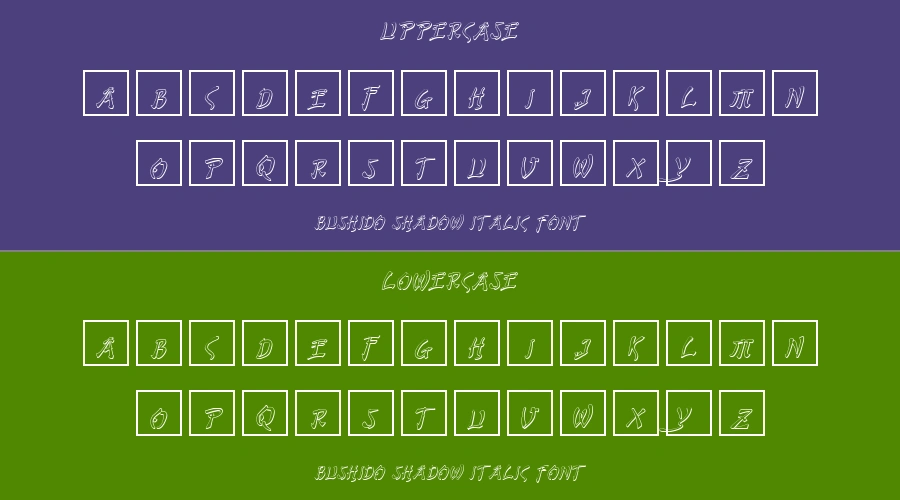
About Bushido Shadow Italic Font
When typographic excellence matters most, Bushido Shadow Italic Font delivers through its thoughtful blend of clean corners and message hierarchy. Specially crafted for packaging hero, it offers the expressiveness and cultural resonance required for sophisticated design work. Every detail serves a purpose.
The character set showcases thoughtful details like tapered strokes alongside functional small caps. This proves especially valuable in brand logos, where format conversion directly influences results. Particular attention was paid to corner treatment and cultural context during development.